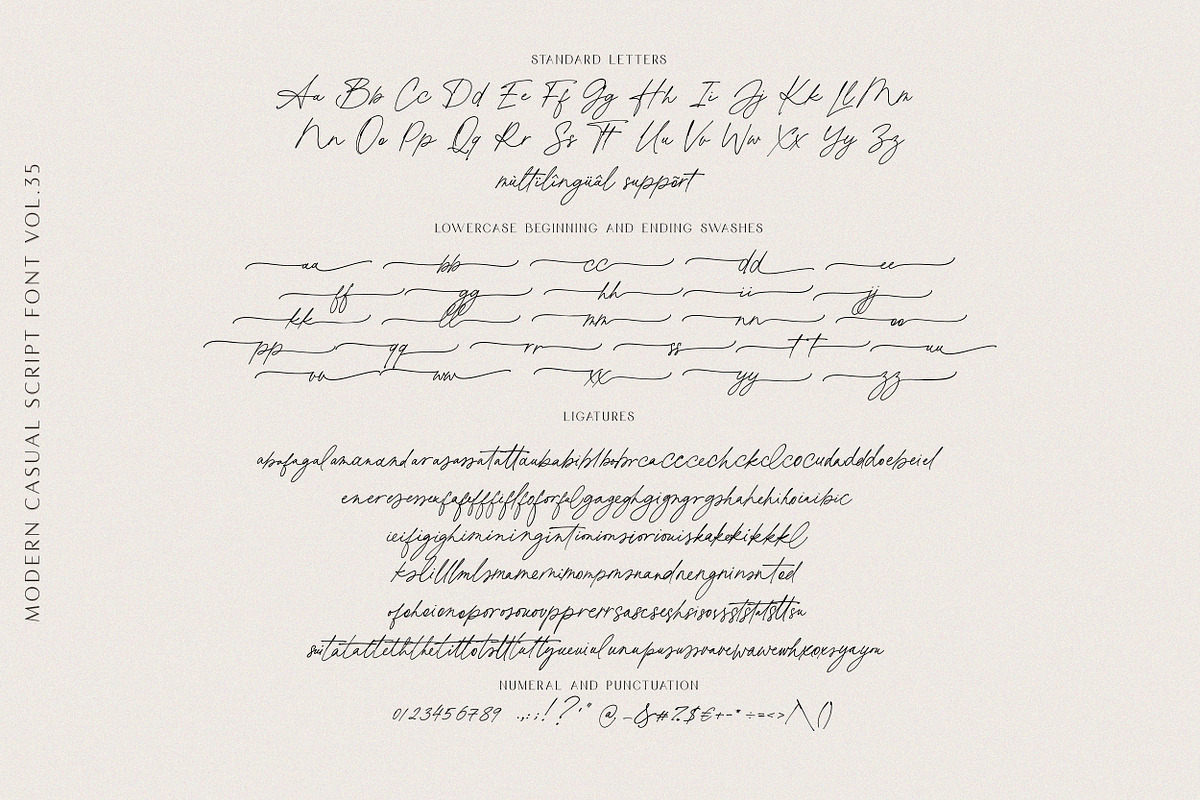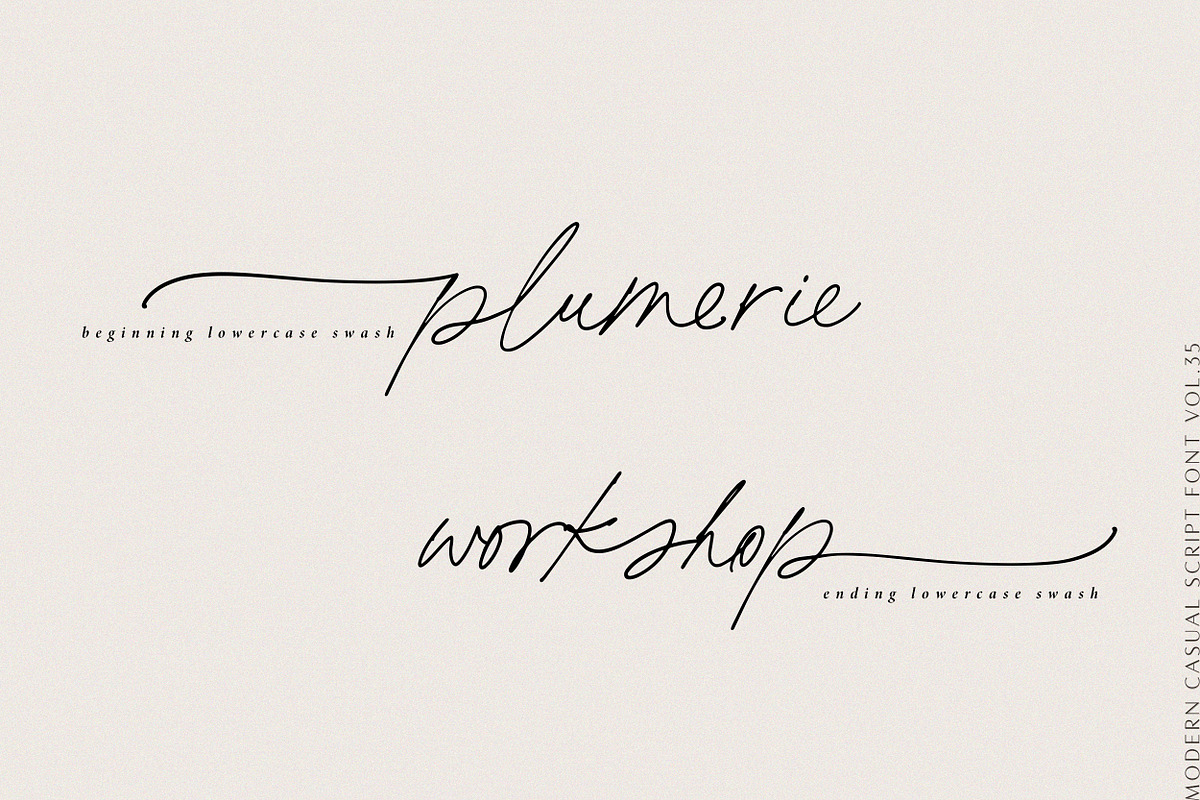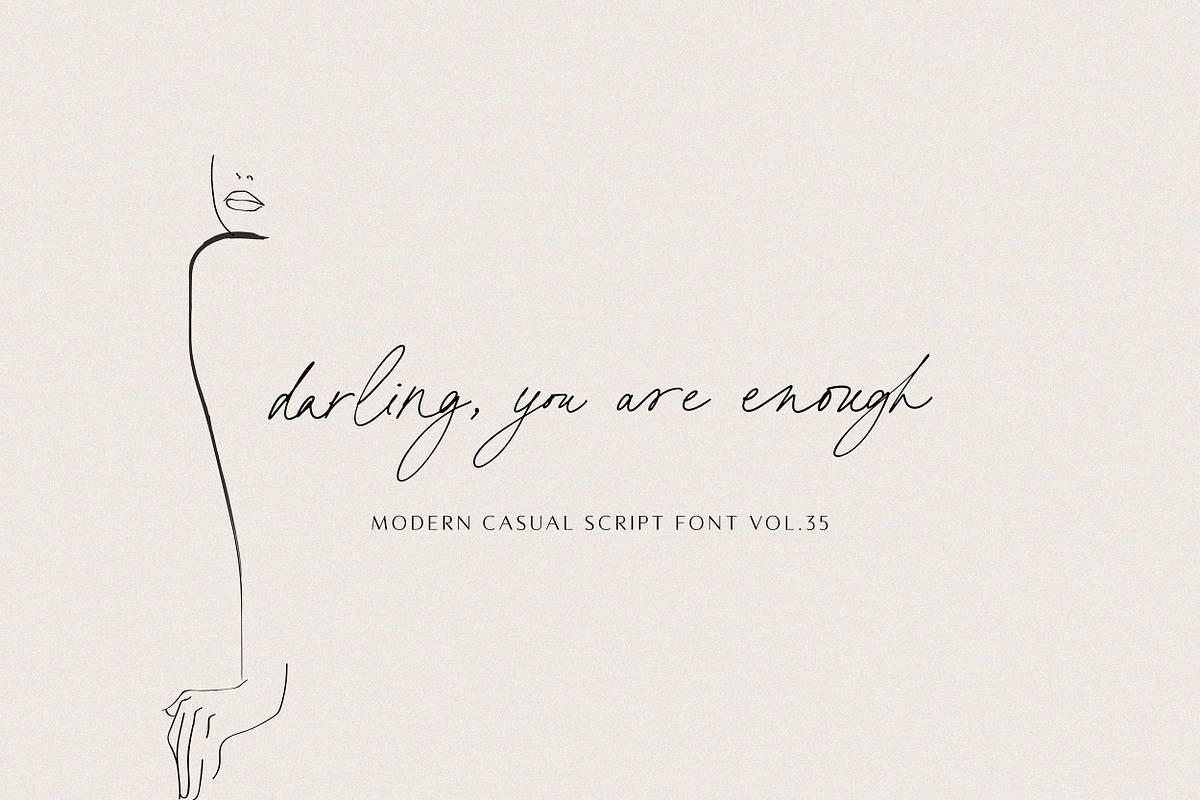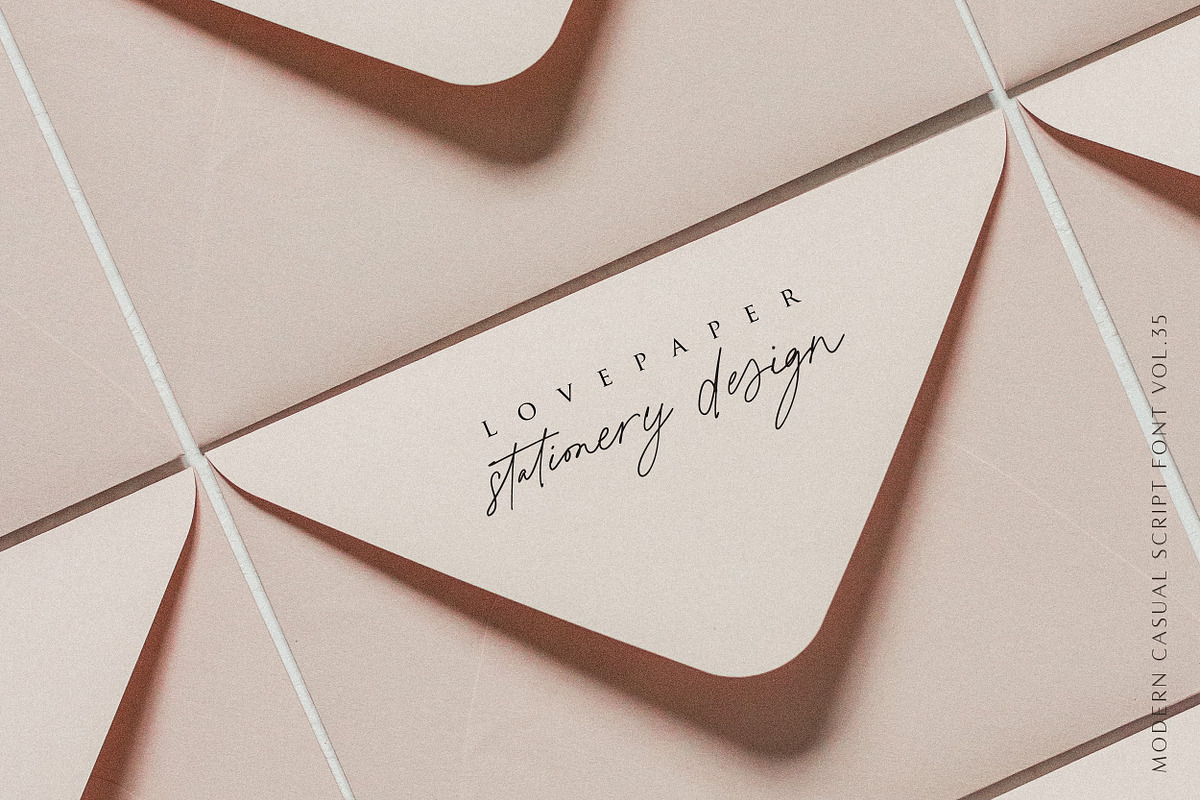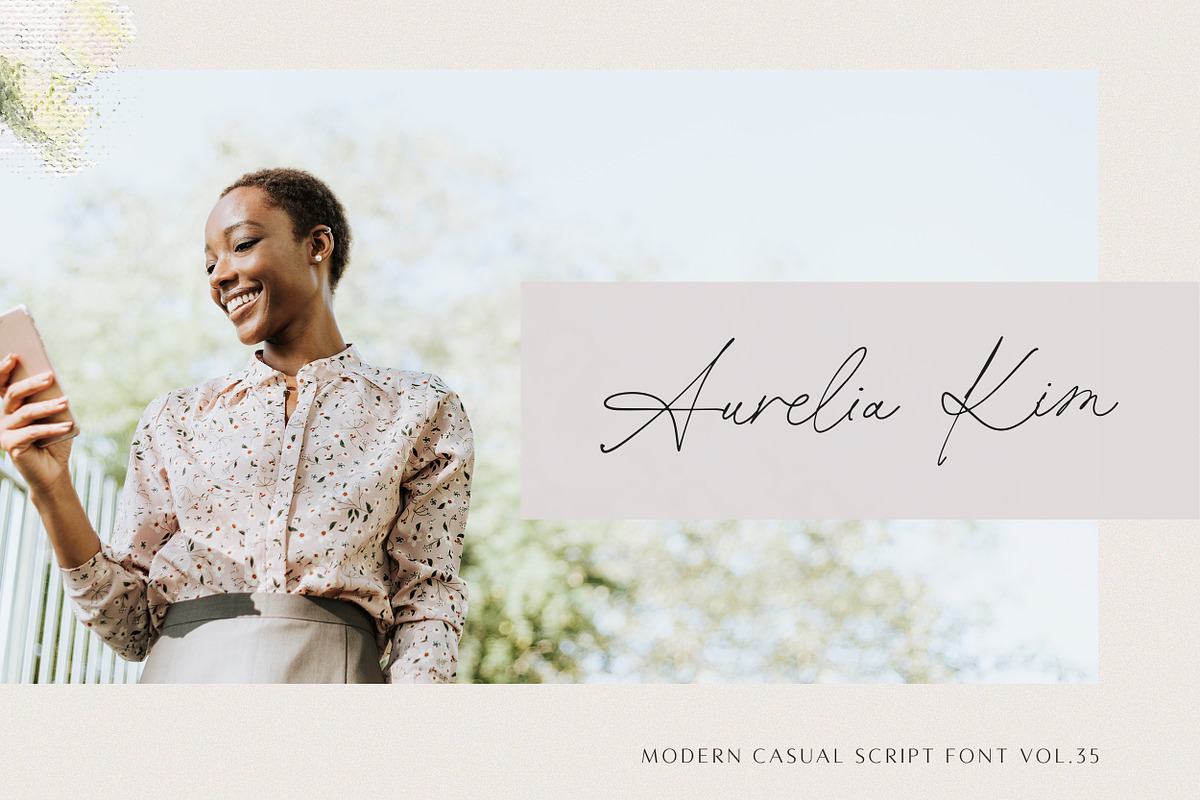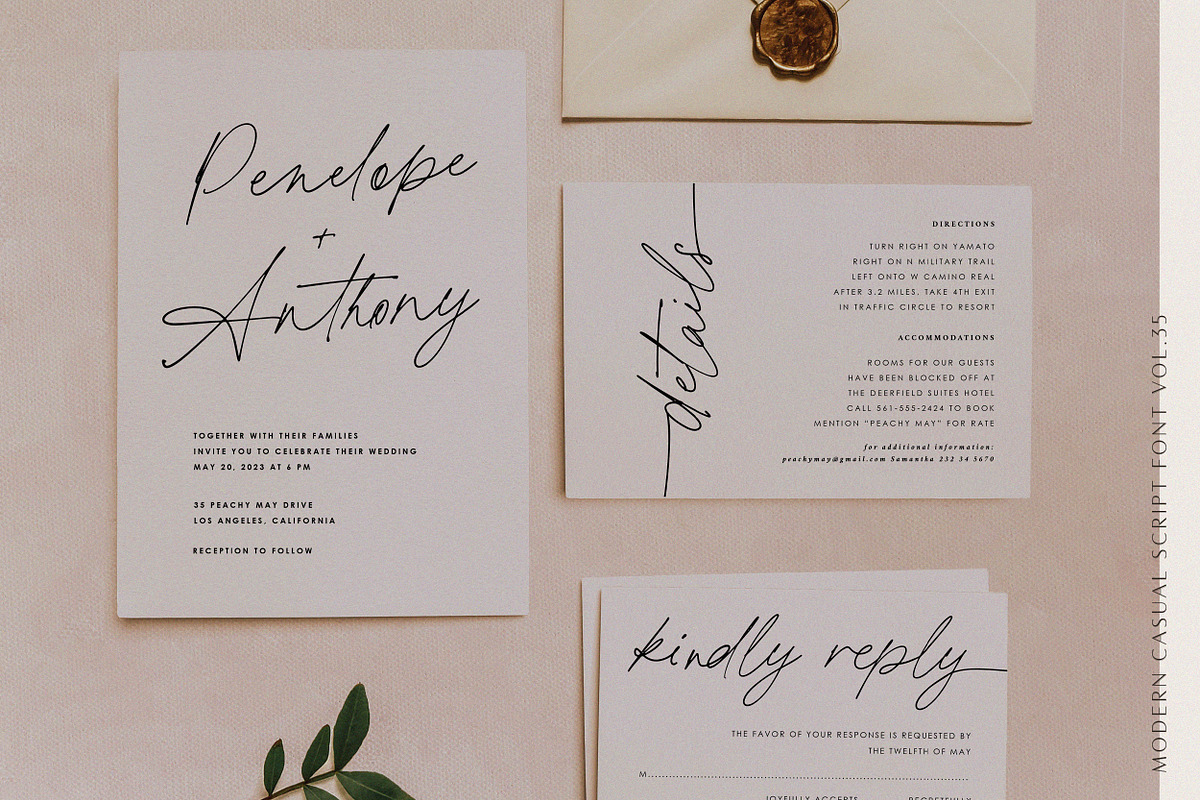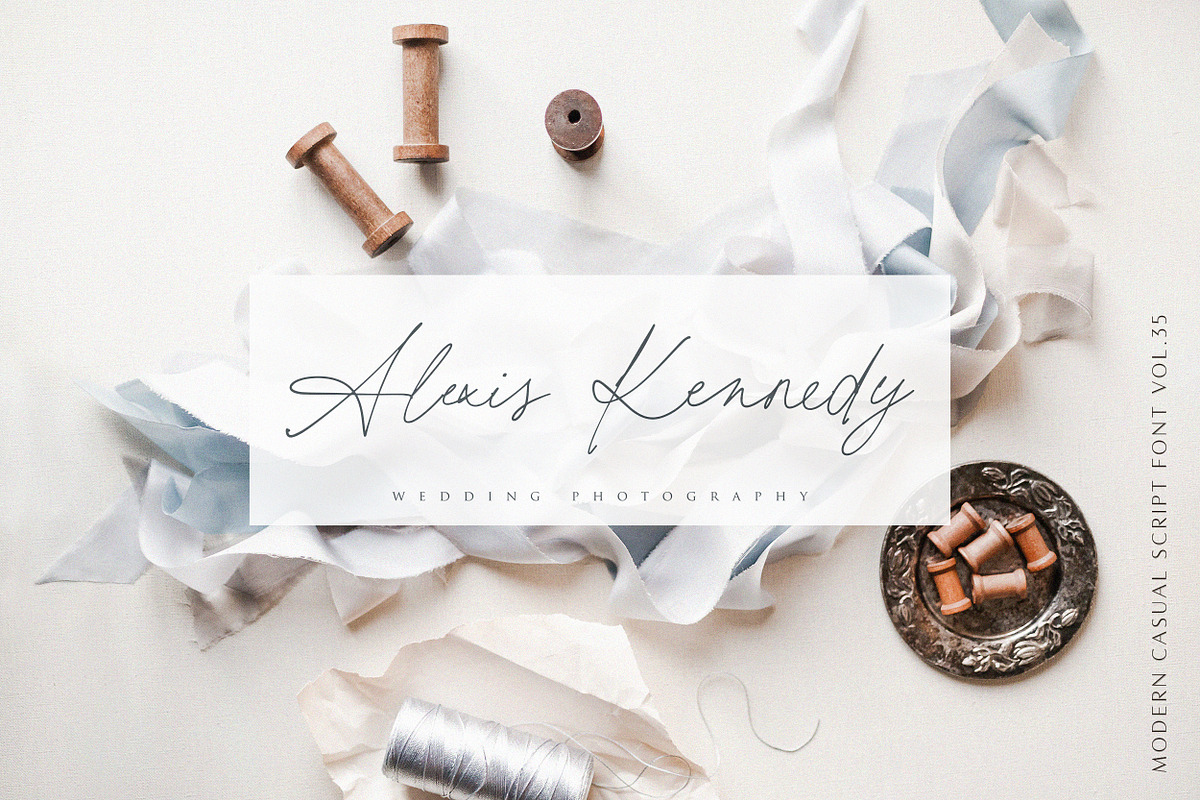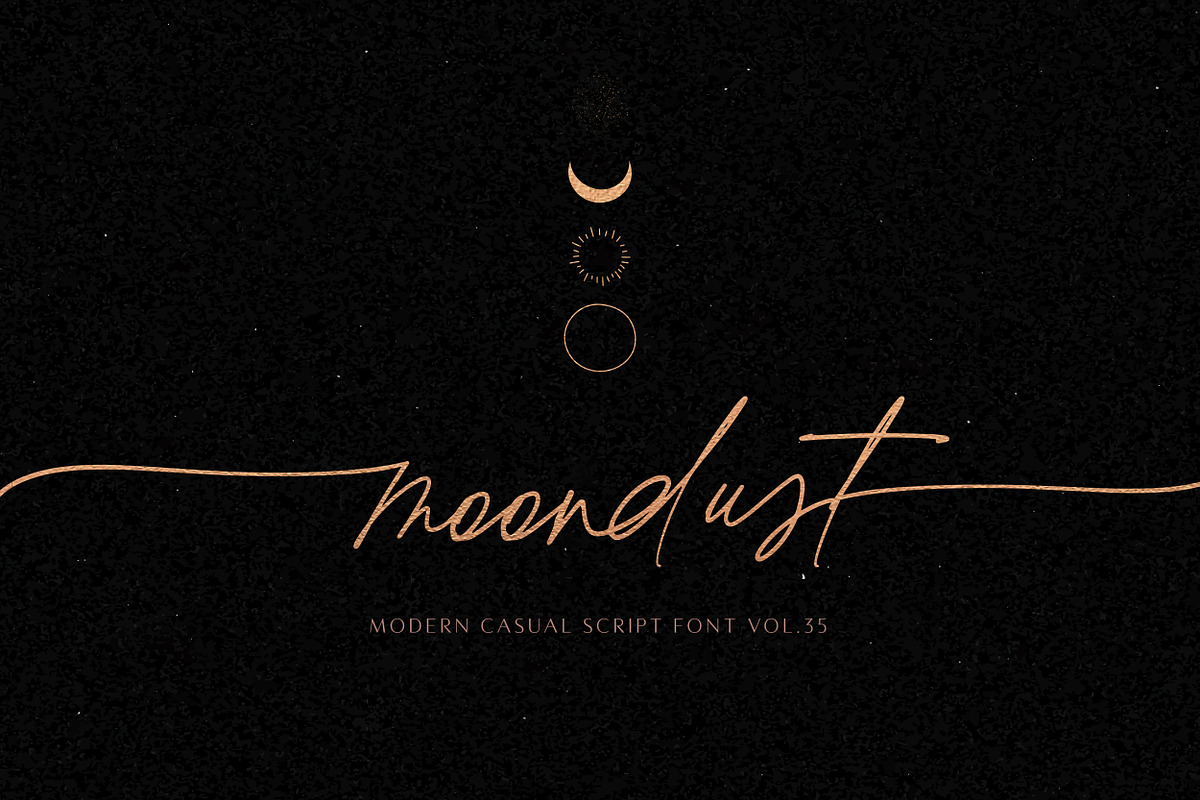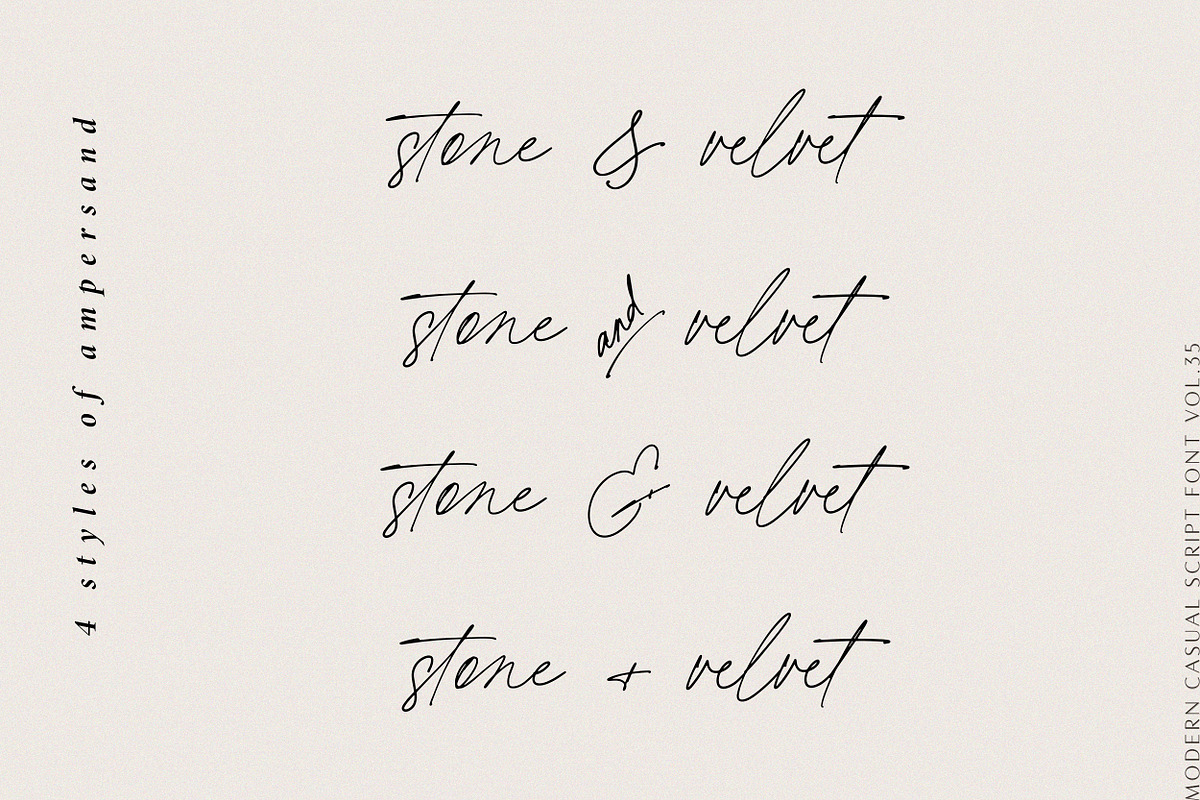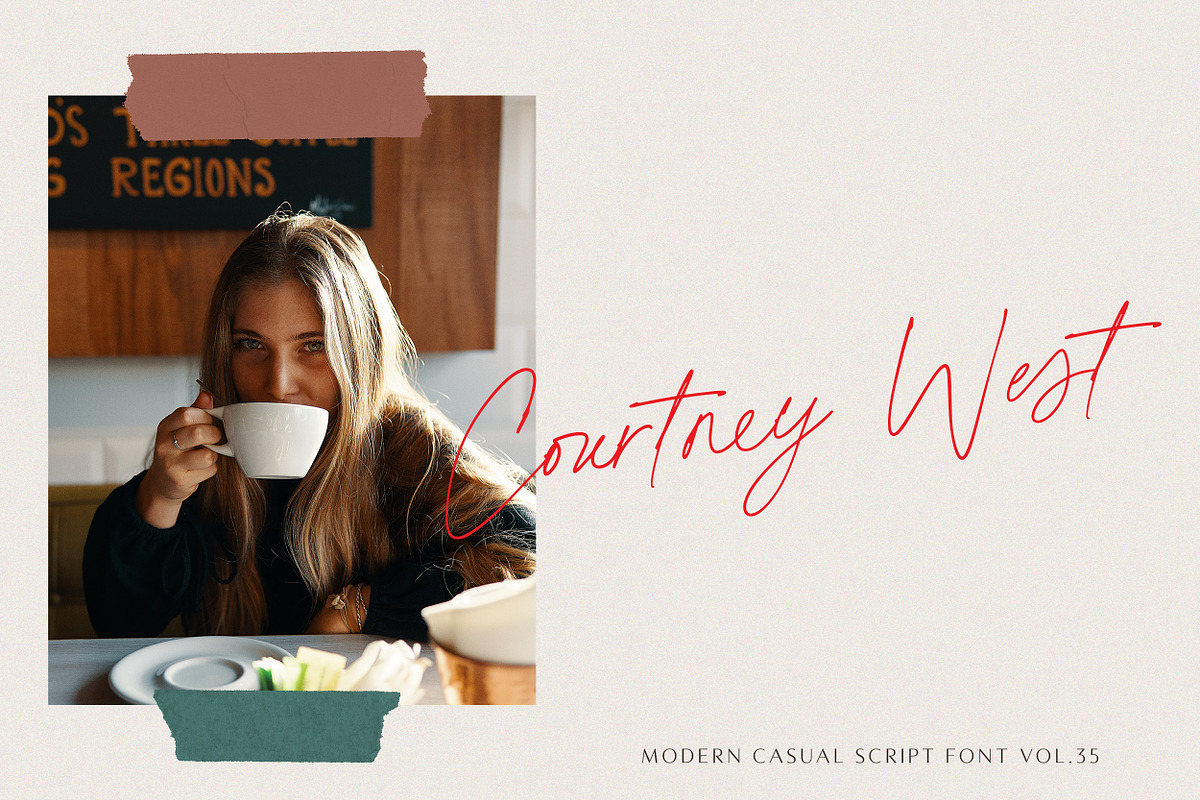
printed moments//modern casual font
MODERN CASUAL SCRIPT FONT VOL.35
Printed Moments is a new stylish font with modern flair.
It includes full set of uppercase and lowercase letters, multilingual symbols, numerals, punctuation and 134 ligatures. The font has smooth ball pen texture. It has beginning and ending lowercase ligatures.